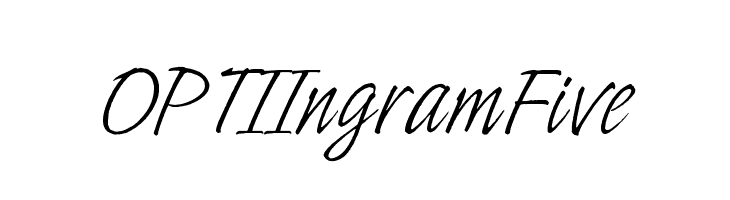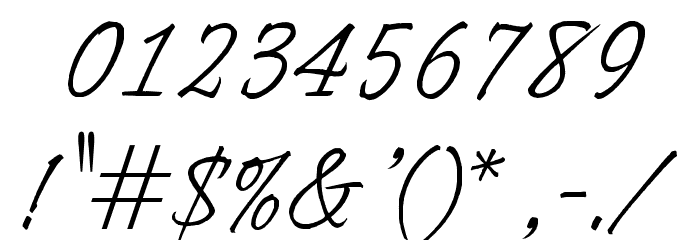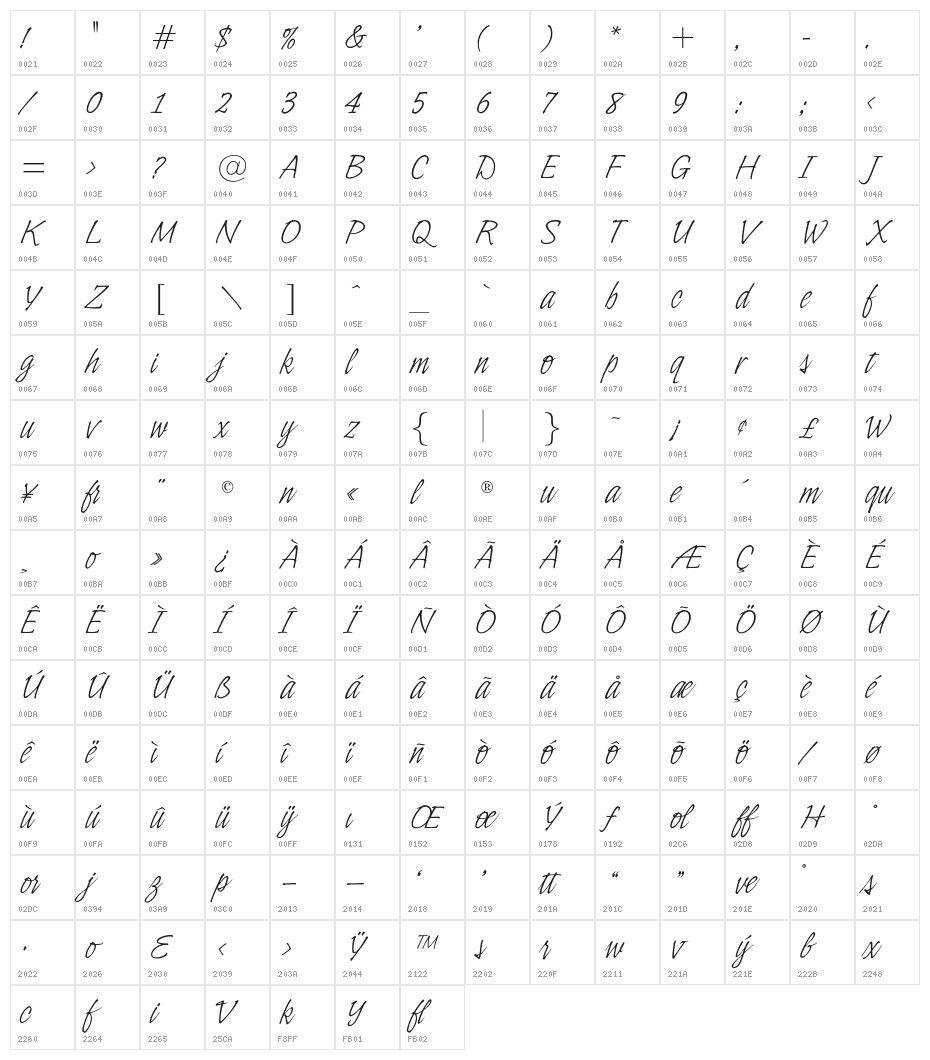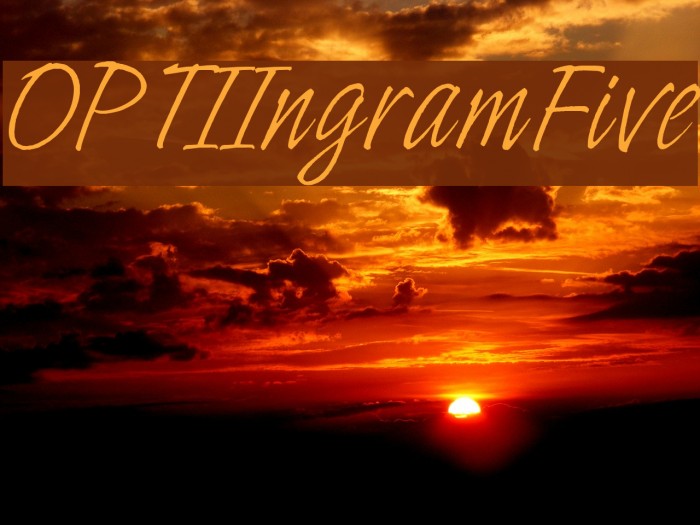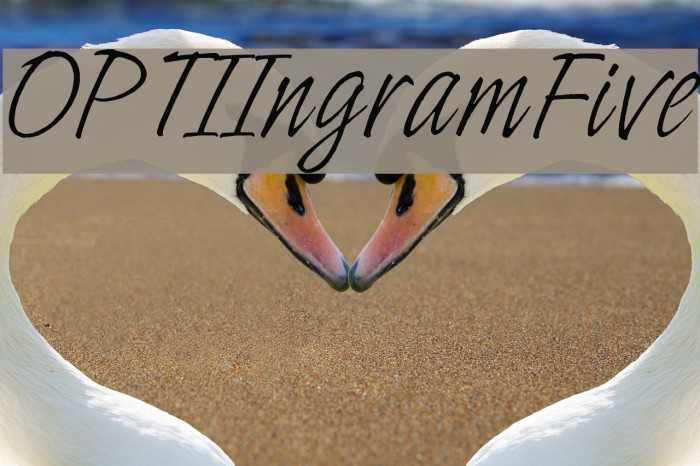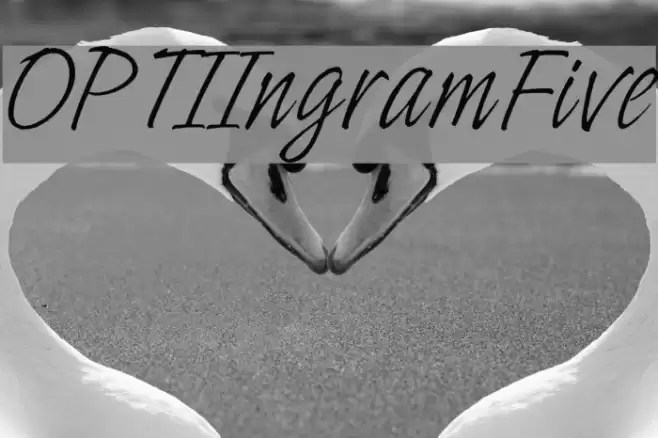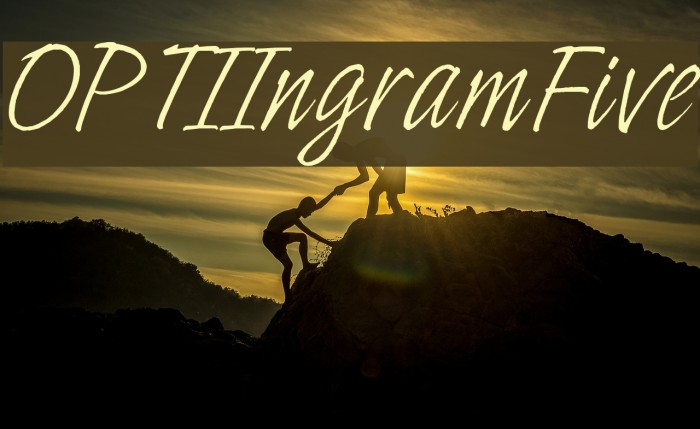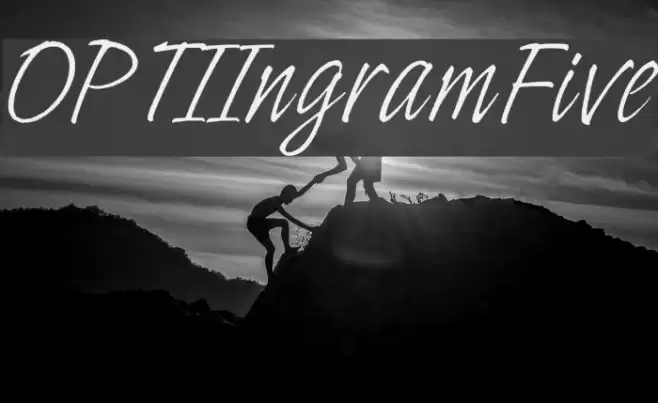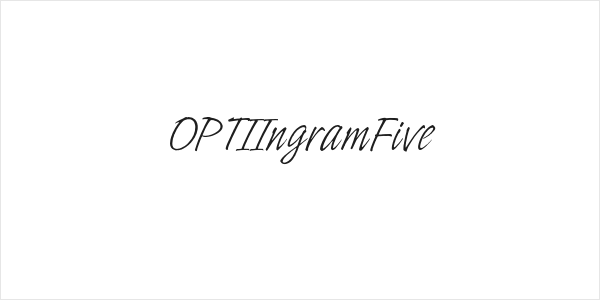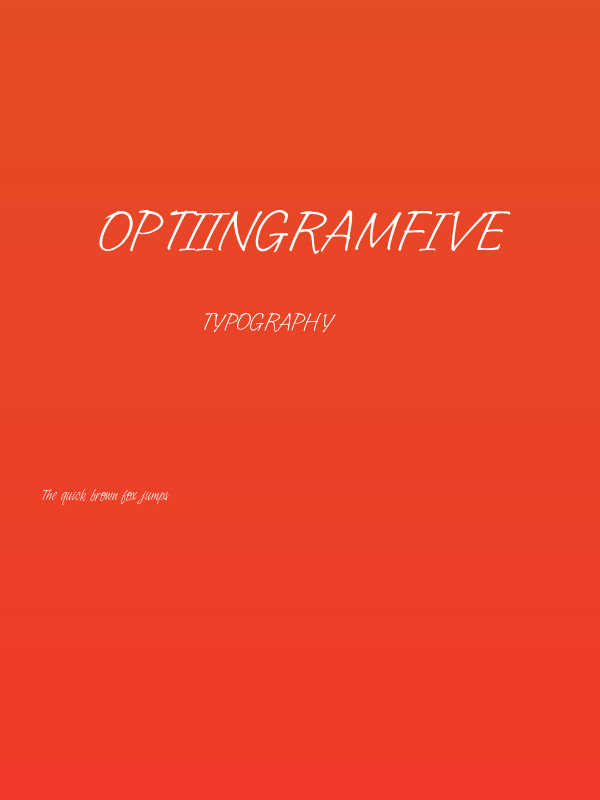
OPTIIngramFive Font
OPTIIngramFive Description
This elegant script font features a flowing, cursive style with a slight slant, giving it a sophisticated and dynamic appearance. The characters are interconnected, creating a seamless and fluid look. The uppercase letters are tall and graceful, while the lowercase letters maintain a consistent rhythm and balance. The numerals and special characters are designed to complement the overall aesthetic, adding a touch of refinement. The font's thin strokes and moderate contrast enhance its legibility while maintaining an artistic flair.
| Proposed Projects | Ideal for wedding invitations, elegant branding, personal stationery, and artistic projects requiring a touch of sophistication. |